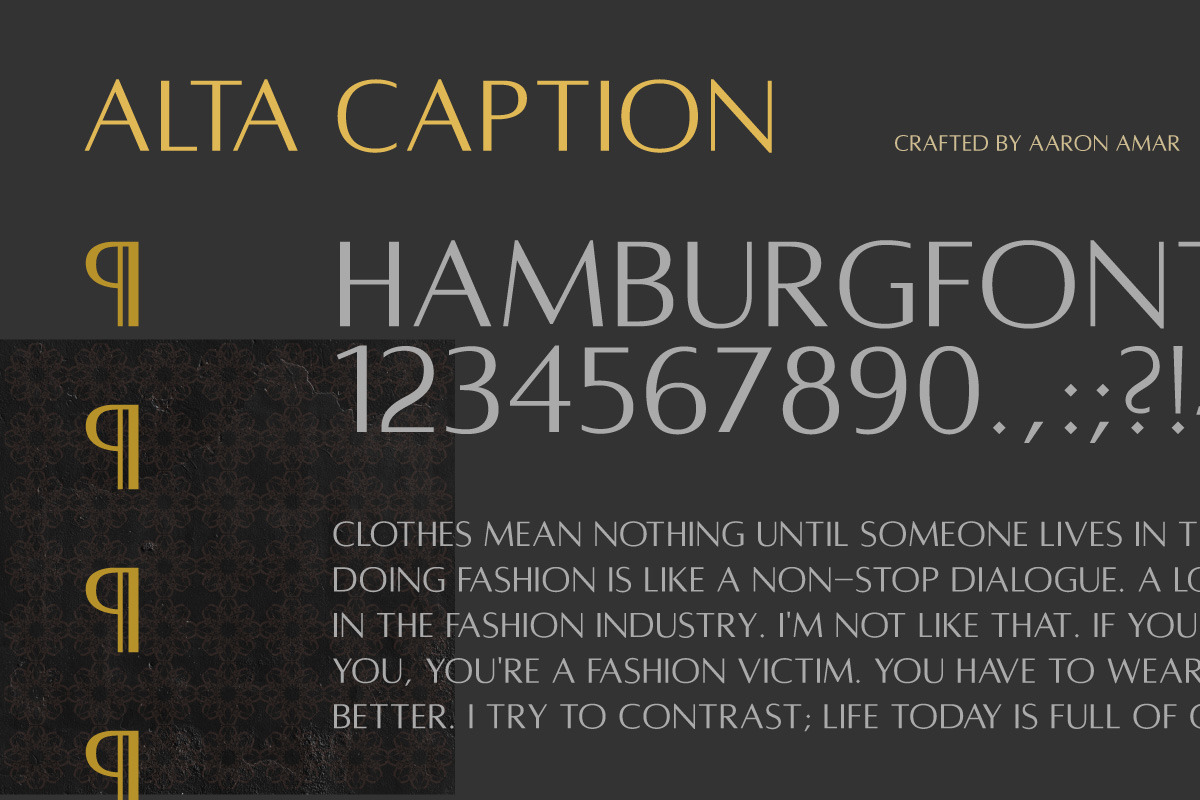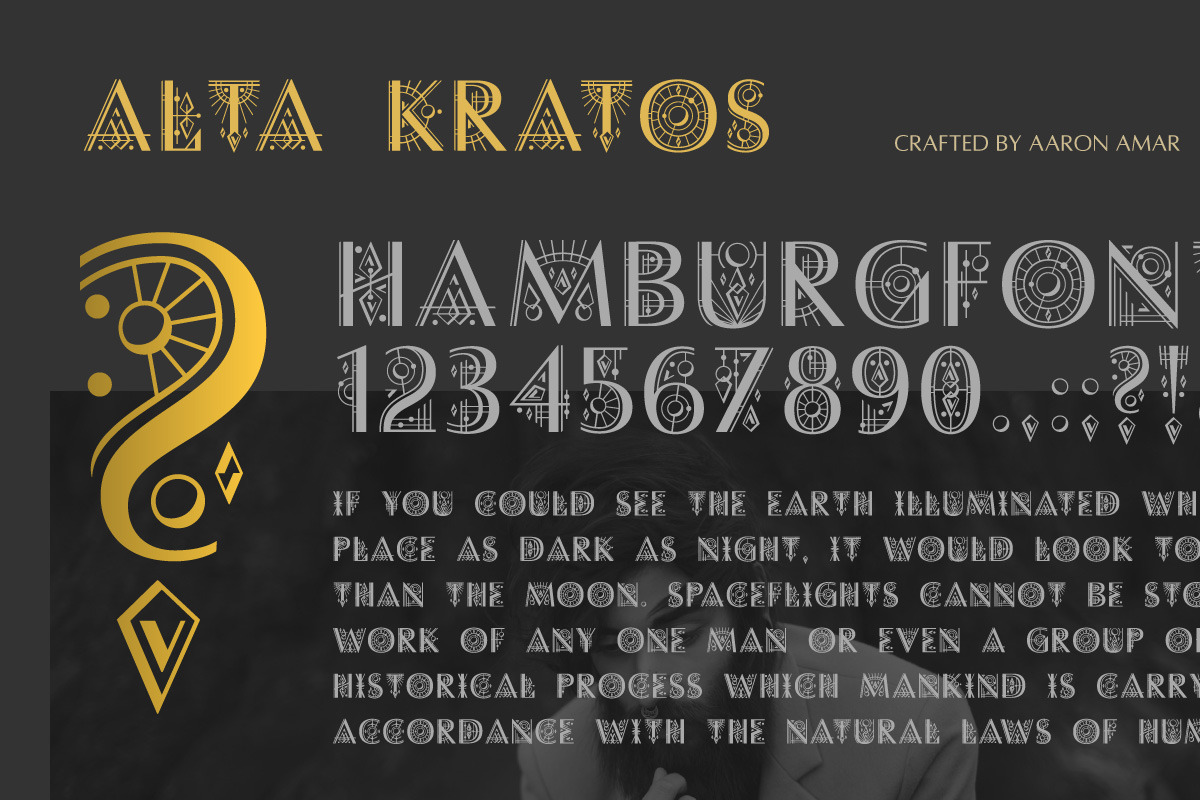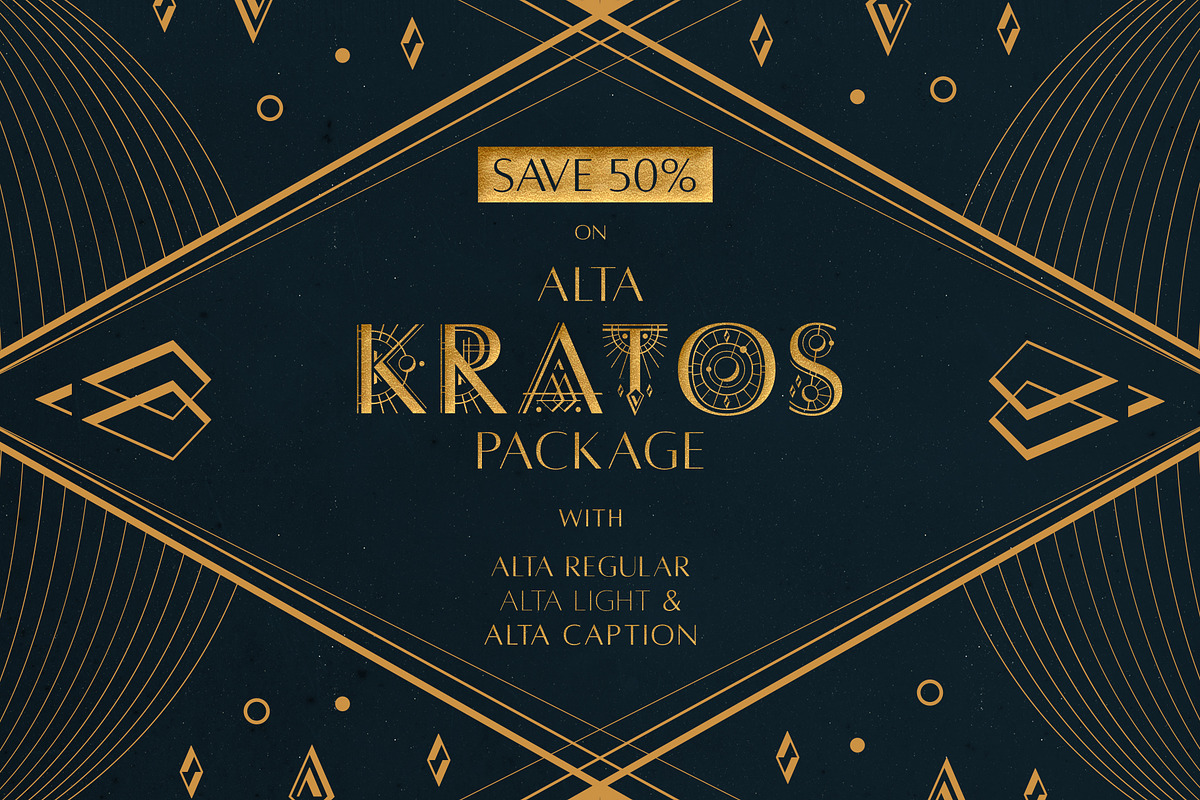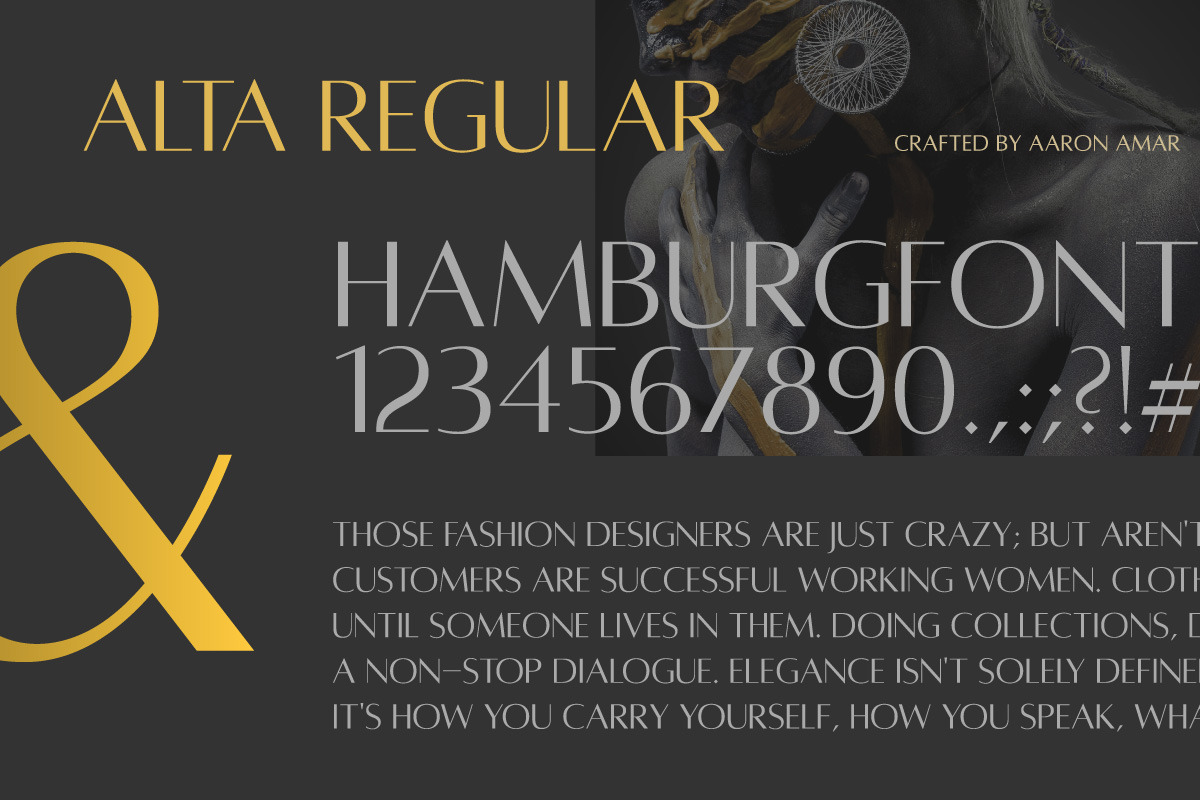
[SAVE 50%] Alta Kratos Package
Alta Kratos ― An all-caps Display Typeface and a new member of the Alta Typeface family, based on the aesthetics of Optima Typeface, originally created by Hermann Zapf.